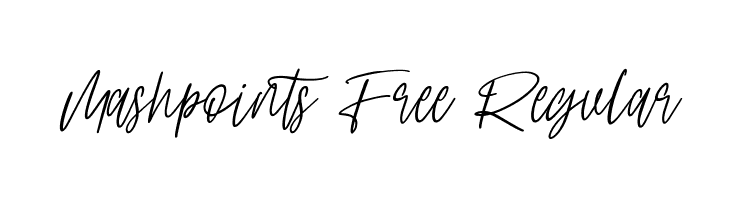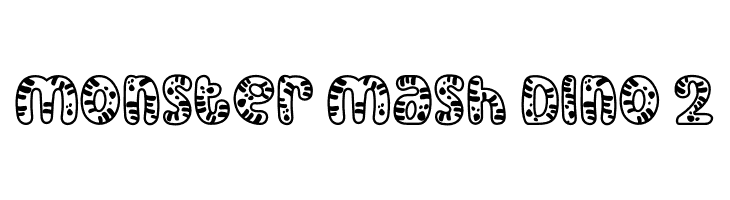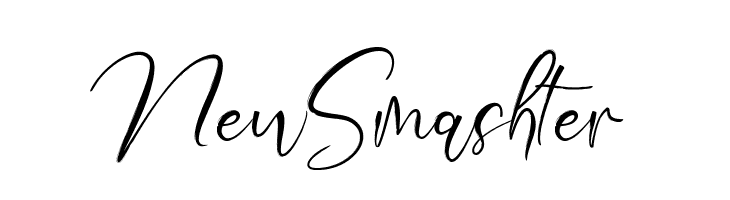
A bold, geometric font with unique letterforms and strong visual impact.
( Fonts by Eifetstype )
A bold, playful font with rounded edges and a dynamic, handwritten style.
( Fonts by Letterena Studios )
A playful handwritten font with a casual and friendly style.
( Fonts by PutraCetol Studio )
A playful, monster-themed font with bold, rounded characters and quirky details.
( Fonts by PutraCetol Studio )
A playful, dinosaur-themed decorative font with bold, rounded characters and integrated footprints.
( Fonts by PutraCetol Studio )
A playful, dinosaur-themed font with bold, patterned characters.
( Fonts by PutraCetol Studio )
A playful, dinosaur-themed decorative font with bold, rounded characters.
( Fonts by Maulana Creative )
A modern handwritten script font with fluid, elegant strokes.
( Fonts by Pinisiart )
A playful, hand-drawn font with rounded, informal characters.
( Fonts by Winarko )
An elegant, flowing script font with sophisticated cursive letterforms.